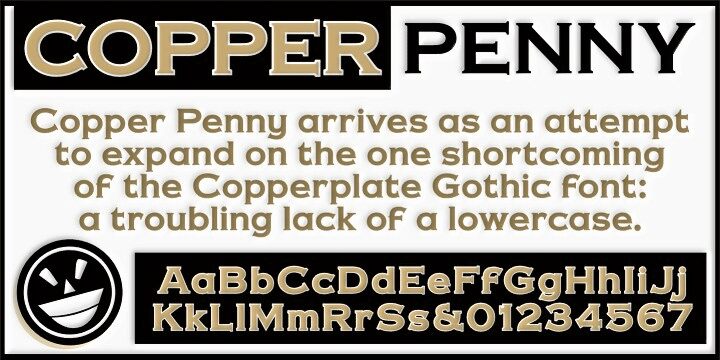
Copper Penny DTP by The Fontry & JLS is a free old-style serif font with a coin-rubbed, storybook warmth. The letters pair broad, rounded forms with sharp little beaks and chunky feet, giving the font a slightly antique print feel that lands somewhere between bookish and folkish.
It fits naturally on packaging, pub menus, boutique shop signs, chapter openers, and poster titles where a free font needs a touch of period flavor without turning fussy. Because the shapes are full and the serifs have a clipped, hand-cut look, it works especially well for short headlines, cover lines, and names that want to feel familiar and a bit minted.